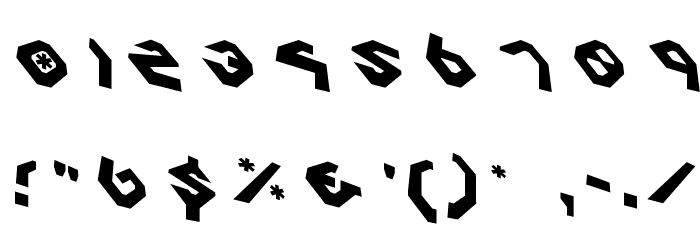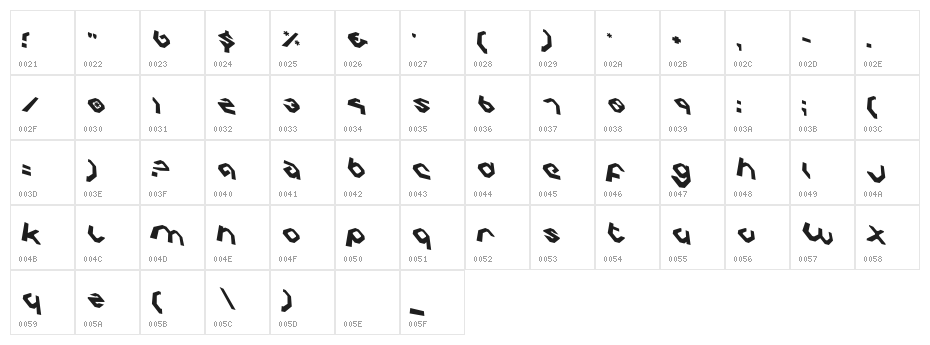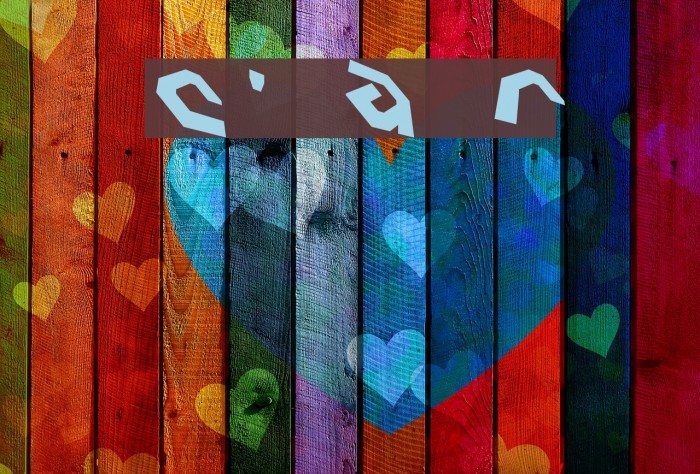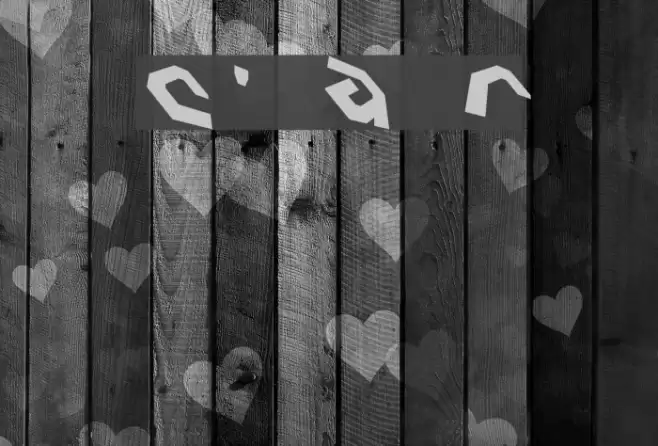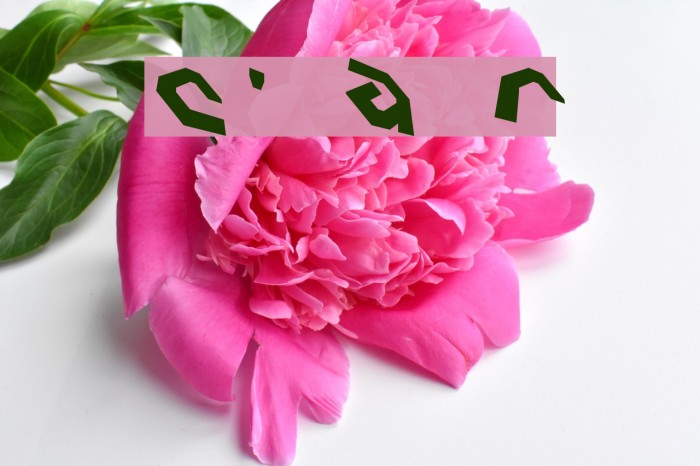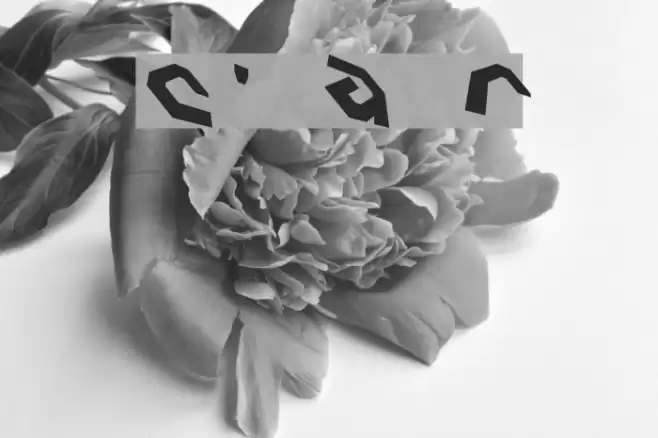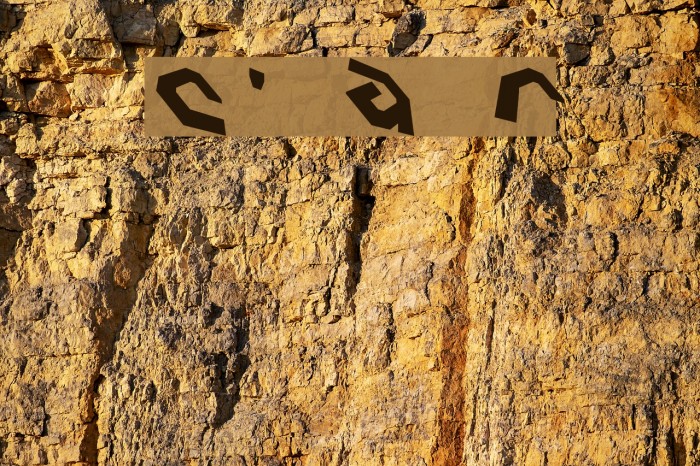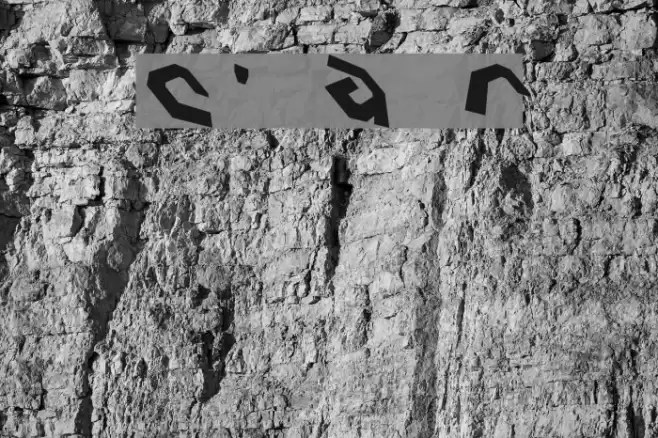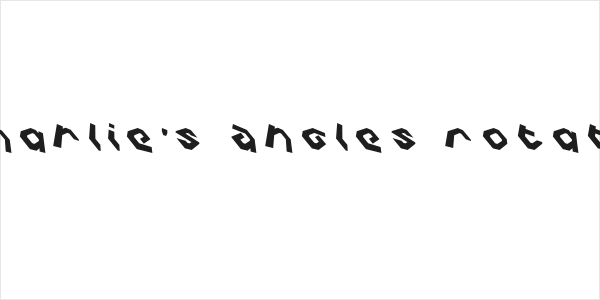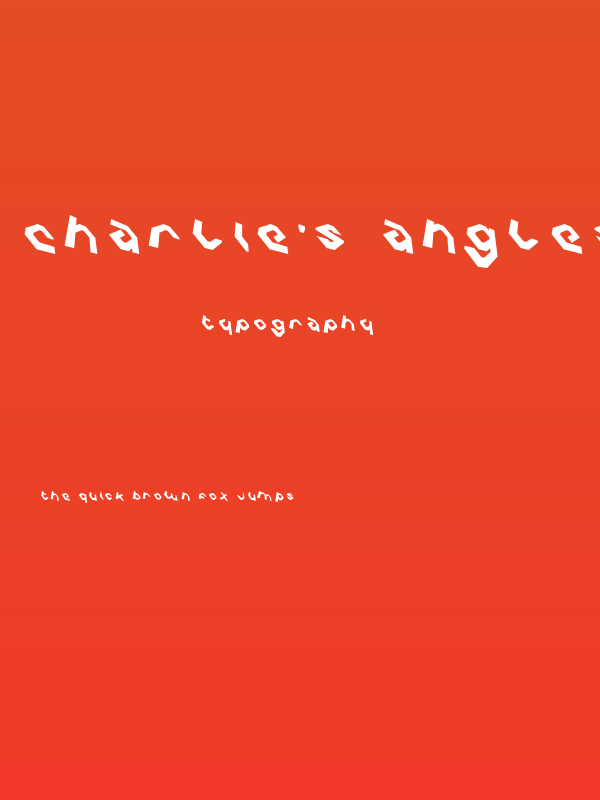
Charlie's Angles Rotate Font
Charlie's Angles Rotate Description
This font features a bold and angular design, with each character appearing as if it has been carved from a block. The sharp edges and geometric shapes give it a distinct and edgy look. The uppercase and lowercase letters maintain a consistent style, with a slightly tilted orientation that adds a dynamic feel. Numbers and special characters follow the same angular theme, ensuring uniformity across the typeface. This font's unique style makes it stand out, offering a modern and artistic flair.